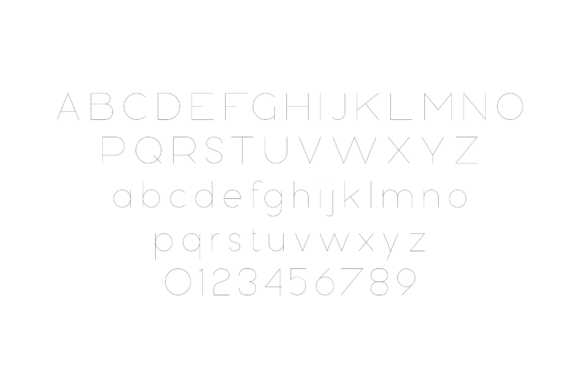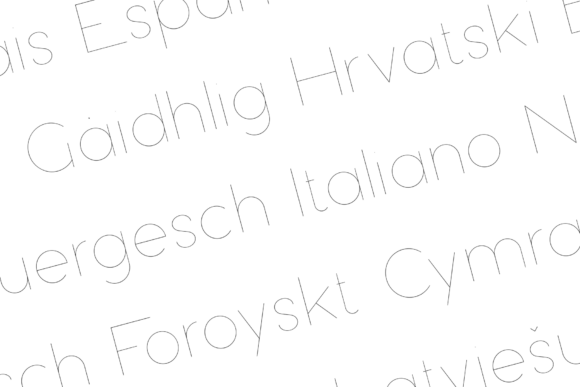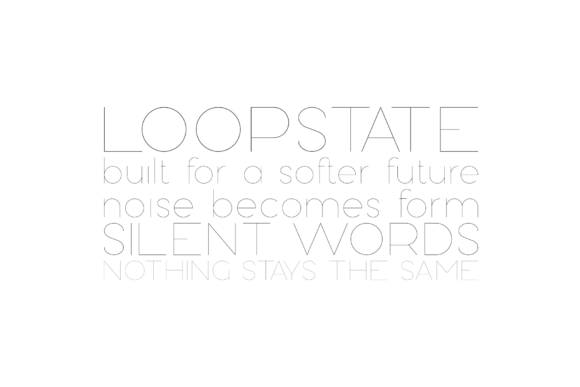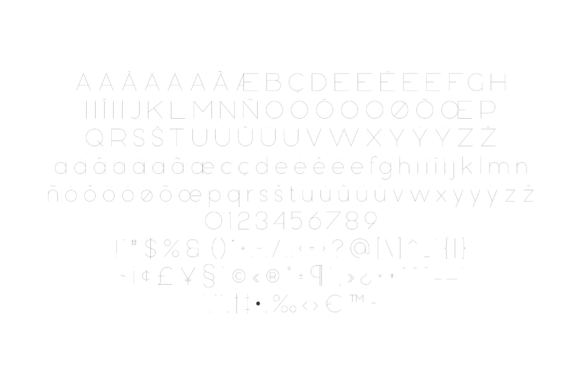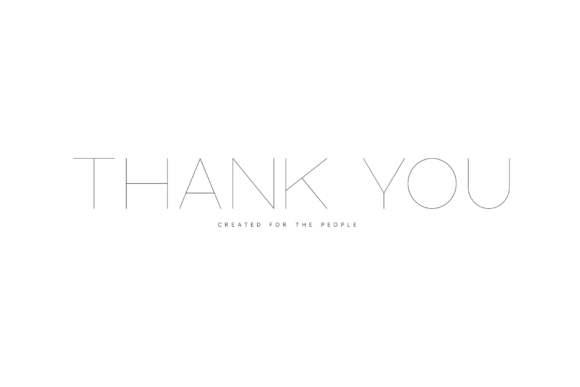
Bubble Gum Font: The Ultimate Guide to This Sweet and Bold Typeface
Are you looking for a font that’s as fun and playful as it is sophisticated and modern? Look no further than the Bubble Gum Sans Serif font. This ultra-thin, airy typeface is built for clarity and modern minimalism, making it the perfect choice for a wide range of design projects. In this article, we’ll take a closer look at the Bubble Gum Font, its features, and how you can use it to add a touch of sweetness to your designs.
A Refreshing Take on Geometric Aesthetic
The Bubble Gum Sans Serif font offers a refreshing take on the geometric aesthetic, with a lightweight and exceptionally clean design that’s perfect for modern designs. Its ultra-thin lines and airy feel make it a great choice for designers who want to create a sense of sophistication and elegance in their work. Despite its name, the Bubble Gum Sans Serif typeface is quite mature, providing a sophisticated “less is more” vibe that works perfectly for body text or subtle subheaders.
Ideal for Modern and Fun Designs
The Bubble Gum Sans Serif font is an excellent choice for a wide range of design projects, including tech startups, architecture portfolios, and contemporary interior design branding. Its modern and minimalist design makes it perfect for projects that need a clean and sophisticated look. However, its fun and playful vibe also makes it ideal for more creative projects, such as kids branding, candy packaging, retro posters, and t-shirt designs.
Key Features of Bubble Gum Font
- Ultra-thin lines: The Bubble Gum Sans Serif font features ultra-thin lines that give it a lightweight and airy feel.
- Clean design: The font has a exceptionally clean design that’s perfect for modern designs.
- Geometric aesthetic: The Bubble Gum Sans Serif font offers a refreshing take on the geometric aesthetic.
- Sophisticated vibe: Despite its name, the font has a sophisticated “less is more” vibe that works perfectly for body text or subtle subheaders.
How to Use Bubble Gum Font
The Bubble Gum Sans Serif font is a versatile typeface that can be used in a wide range of design projects. Here are a few tips on how to use it:
- Experiment with wide letter spacing: You can enhance the Bubble Gum Sans Serif font by experimenting with wide letter spacing (kerning) to create a premium, breathable layout that feels expensive and cutting-edge.
- Use it for body text or subheaders: The font works perfectly for body text or subtle subheaders, providing a sophisticated and modern look.
- Add a pop of fun: The Bubble Gum Sans Serif font is also perfect for adding a pop of fun to your designs. Use it for headings, titles, or other design elements that need a playful touch.
Ideal Projects for Bubble Gum Font
The Bubble Gum Sans Serif font is ideal for a wide range of design projects, including:
- Kids branding: The font’s fun and playful vibe makes it perfect for kids branding projects.
- Candy packaging: The Bubble Gum Sans Serif font is a great choice for candy packaging designs that need a sweet and playful touch.
- Retro posters: The font’s geometric aesthetic and playful vibe make it perfect for retro poster designs.
- T-shirt designs: The Bubble Gum Sans Serif font is a great choice for t-shirt designs that need a fun and bold character.
- Sticker packs: The font’s playful vibe makes it perfect for sticker packs and other fun design projects.
- Social media graphics: The Bubble Gum Sans Serif font is a great choice for social media graphics that need a modern and playful touch.
- YouTube thumbnails: The font’s bold and playful vibe makes it perfect for YouTube thumbnails that need to grab attention.
- Event flyers: The Bubble Gum Sans Serif font is a great choice for event flyers that need a fun and modern look.
- Bold logos: The font’s bold and playful vibe makes it perfect for creating bold and eye-catching logos.
In conclusion, the Bubble Gum Sans Serif font is a versatile and modern typeface that’s perfect for a wide range of design projects. Its ultra-thin lines, clean design, and geometric aesthetic make it a great choice for designers who want to create a sense of sophistication and elegance in their work. However, its fun and playful vibe also makes it ideal for more creative projects that need a bold and playful character. Whether you’re designing for tech startups, kids branding, or candy packaging, the Bubble Gum Sans Serif font is sure to make your designs stand out.